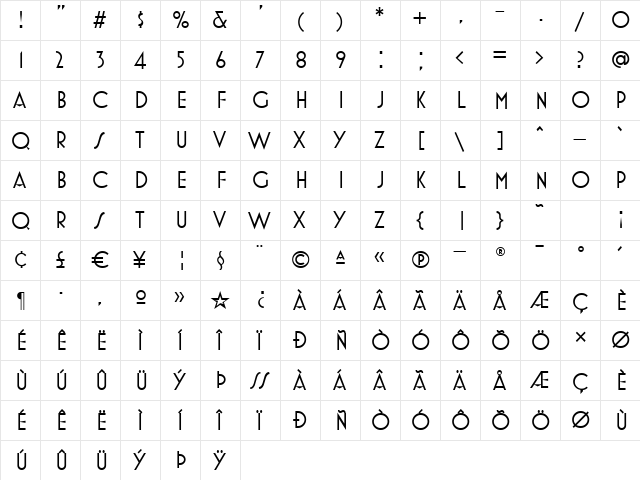
MostraTwoRegular Font Preview
MostraTwoRegular Regular
MostraTwoRegular Font Details
Design Context for MostraTwoRegular Typeface
MostraTwoRegular offers clean, dependable letterforms without strong stylistic allegiance, making it a practical choice for designers who need flexibility.
Pro Tip: Use MostraTwoRegular in both headline and body roles to test its range before committing to a single application.